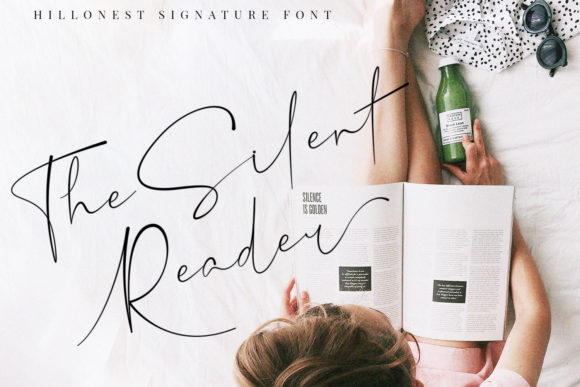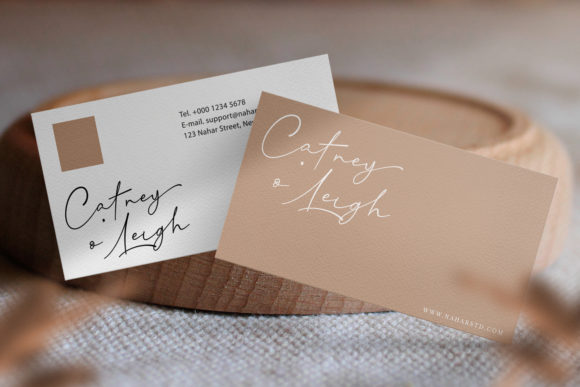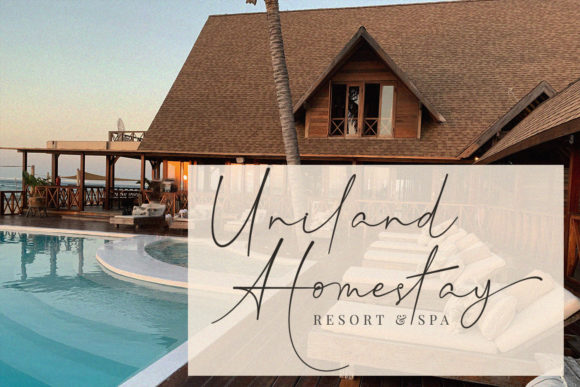
Introduction to Hillonest Signature Font
Hillonest Signature is a luxury handwritten font, created with a touch of elegance.
Why Choose Hillonest Signature Font?
Hillonest Signature Font offers exceptional quality and versatility, making it a valuable addition to your design toolkit. Whether you’re creating for personal projects or commercial use, Hillonest Signature Font delivers professional results.